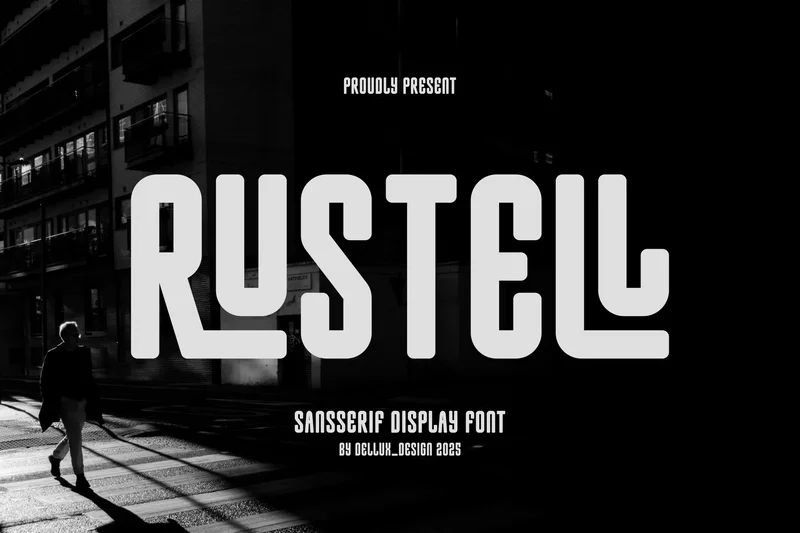
Rustell
Rustell is a unique font. Can make it easier to convey the message in your design. Use for awesome display, labeling, movie sceen, poster, movie title, gigs, album covers, logos, and much more.